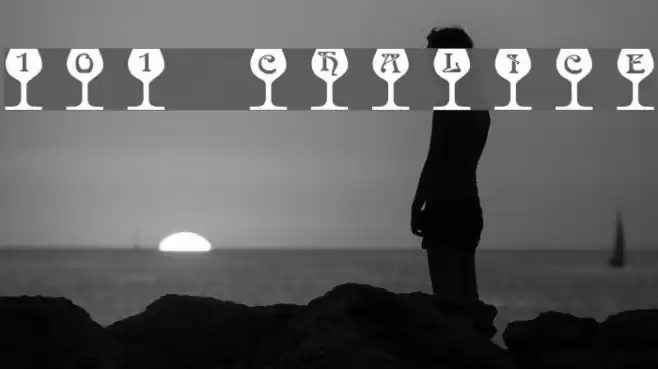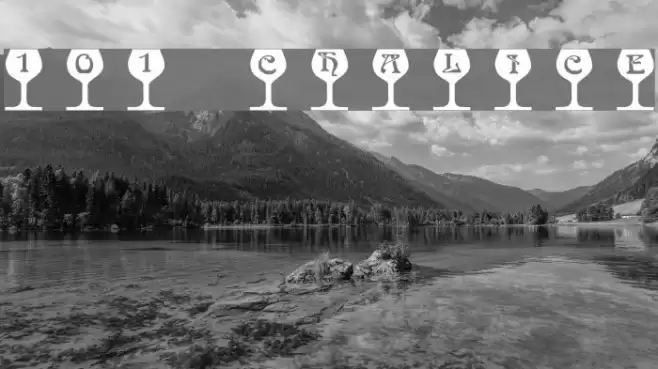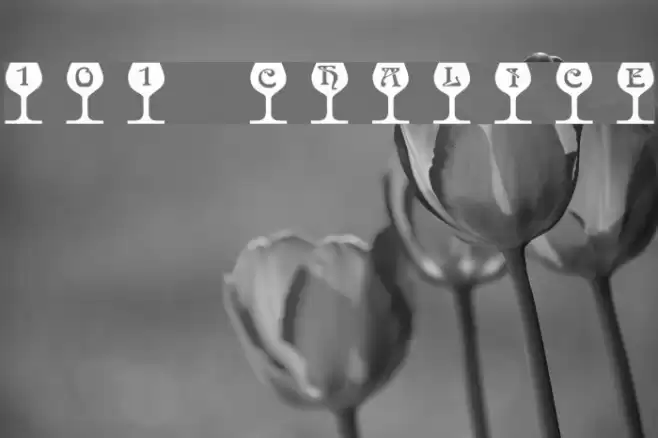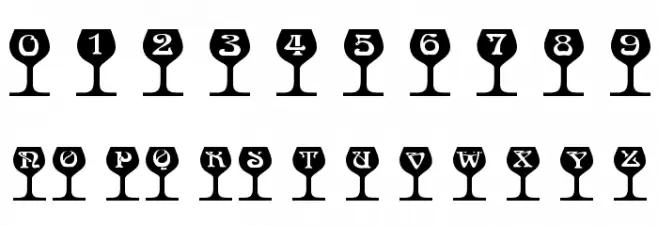
101! Chalice Font
101! Chalice Description
This unique font features characters enclosed within the silhouette of a chalice, creating a distinct and eye-catching design. Each letter and number is centered within the chalice shape, offering a playful yet sophisticated look. The font maintains a consistent style across all characters, with a bold and solid appearance. The chalice design adds a decorative element, making it ideal for themed projects. The characters are well-proportioned within the chalice, ensuring readability while maintaining the novelty of the design.
A decorative font with characters inside chalice silhouettes from Uncategorized fonts.
- Proposed Projects: Ideal for themed events, wine-related branding, party invitations, or decorative posters.
- Use Case: Logos, Invitations, Posters